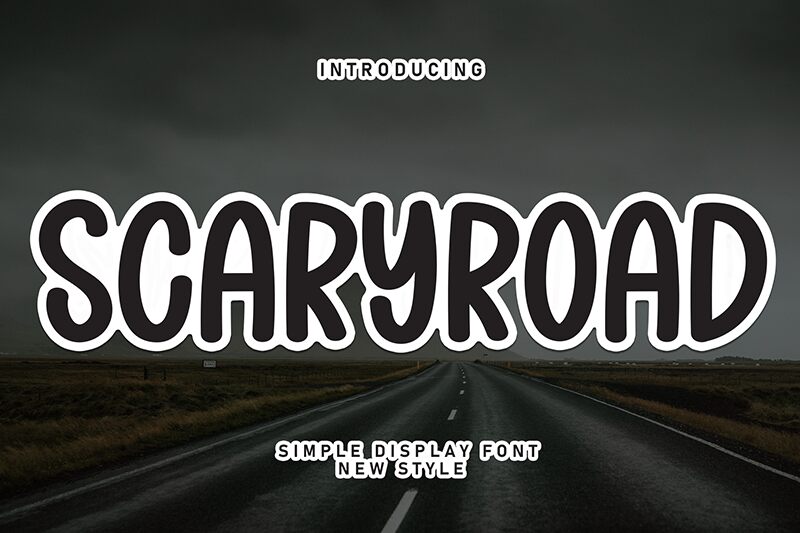
Scaryroad
Scaryroad font by Scratchones embodies a handwritten and condensed style that is both energetic and friendly. With its whimsical touch, this retro-inspired typeface features rounded strokes with naturally broader starting and ending points. This design makes it pleasant to the eyes due to its airy effect that looks neither crowded nor heavy.